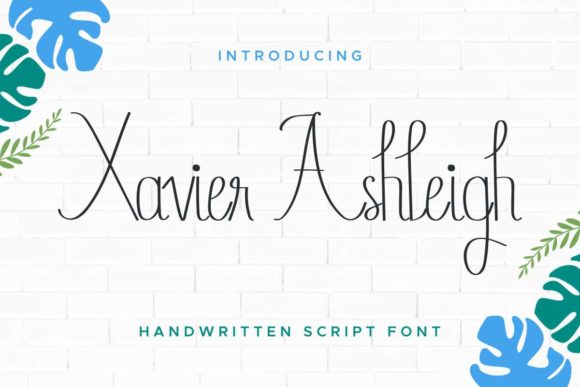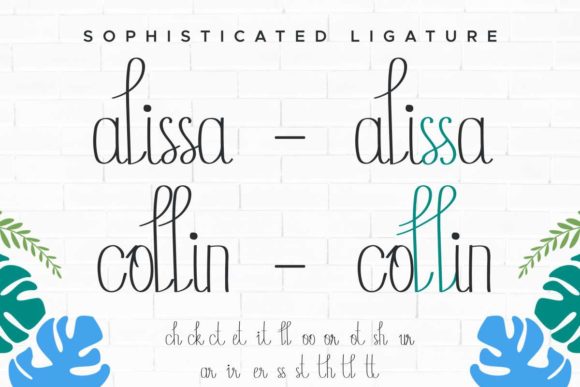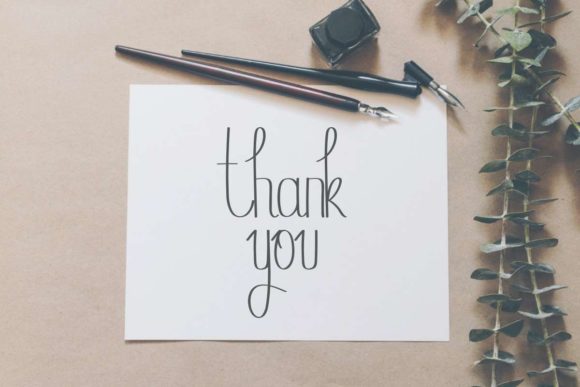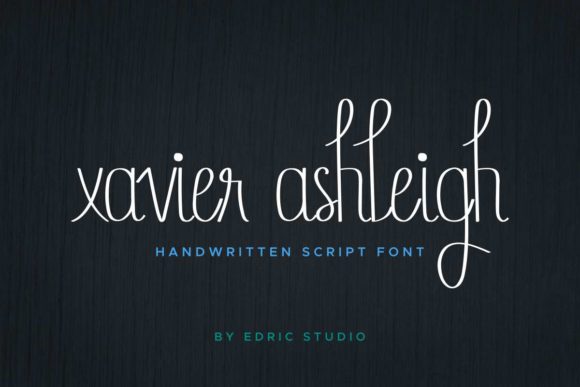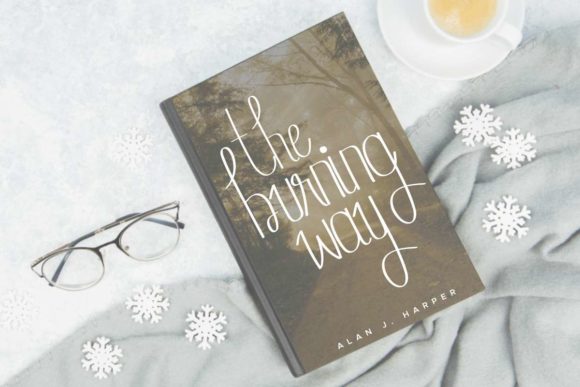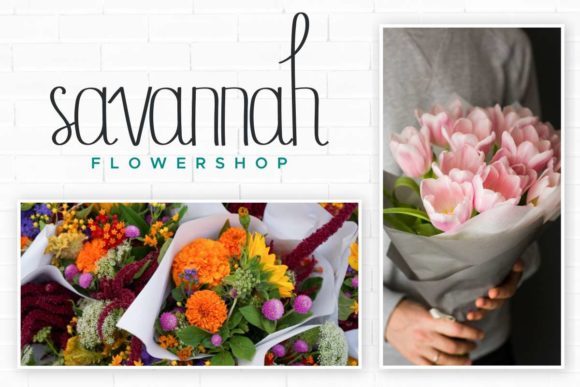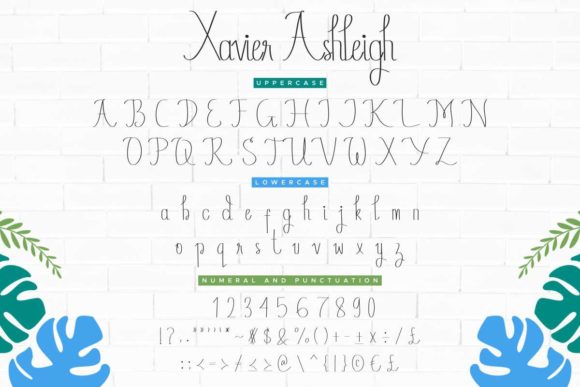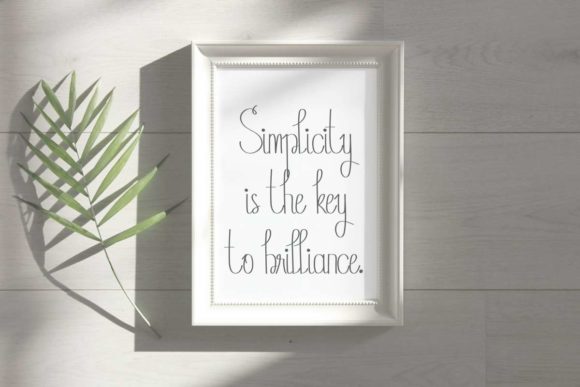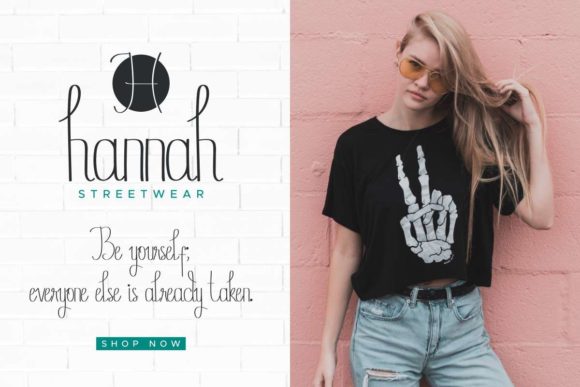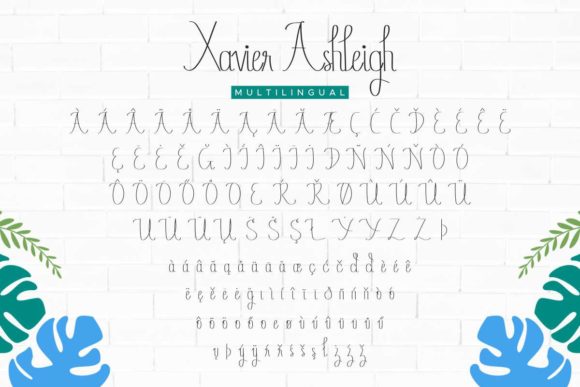
Xavier Ashleigh Font
About Xavier Ashleigh Font
Xavier Ashleigh is an elegant handwritten font, that has a very neat calligraphy. Its simple and classic style makes it incredibly versatile. It will be the perfect match for each of your creative ideas!